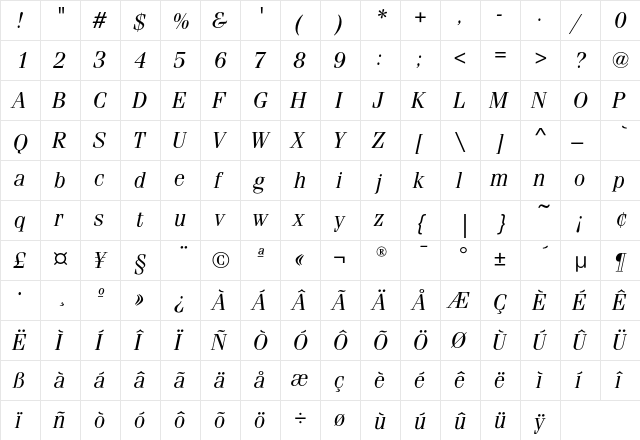
FeniceEF-RegularItalic Regular Font Preview
FeniceEF-RegularItalic Regular
Design Context for FeniceEF-RegularItalic Typeface
FeniceEF-RegularItalic offers clean, dependable letterforms without strong stylistic allegiance, making it a practical choice for designers who need flexibility. Its italic angle brings a sense of urgency and motion to the letterforms.